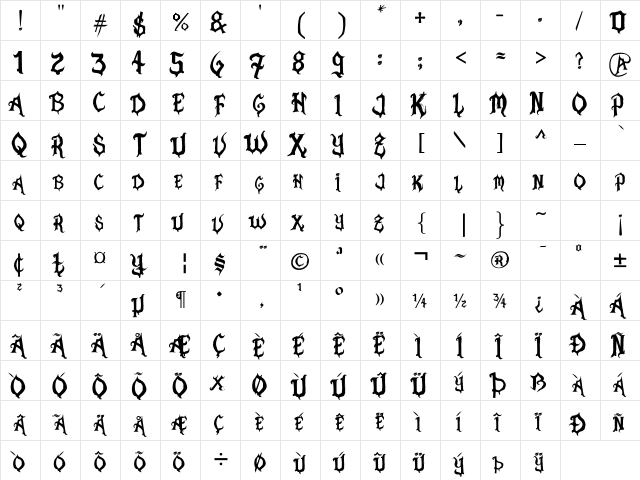
Pasion Acustica Ditono
| Designer | 頊uan Casco |
Design Context for Pasion Acustica Typeface
Pasion Acustica is a composed and adaptable typeface that performs quietly and consistently across a wide range of design contexts.